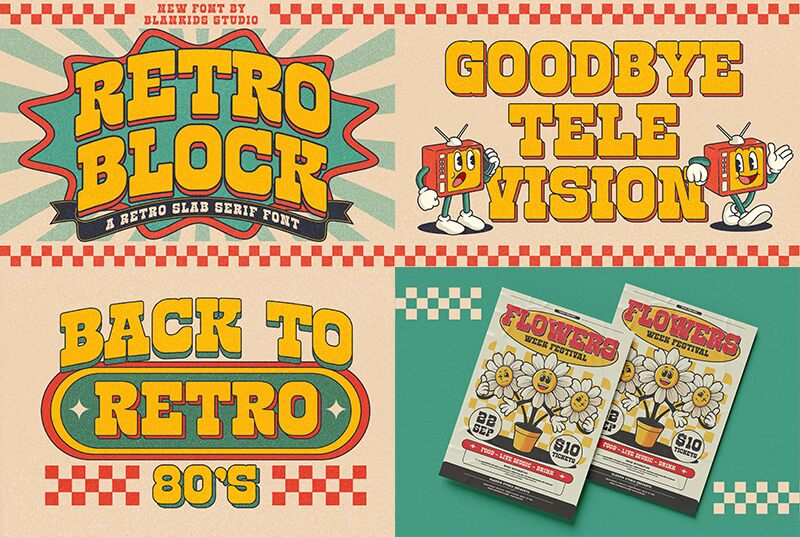
Retro Block font by Blankids is a free font inspired by the classic western style. It features thick, graphic black characters, with occasional thin white lines inside, among other fresh design elements that focus on all the details and breathe life into all of the available characters. Such styles are thus eye-catching and an absolute delight to see and to use.
Retro Block’s aura and beauty are always noticed, making them useful for applications where extra attention is required. These include branding and packaging projects for stylish products, posters and flyers that advertise concerts, restaurants, or art museums, taking the best of both worlds as you combine both modern and artistic presentations.